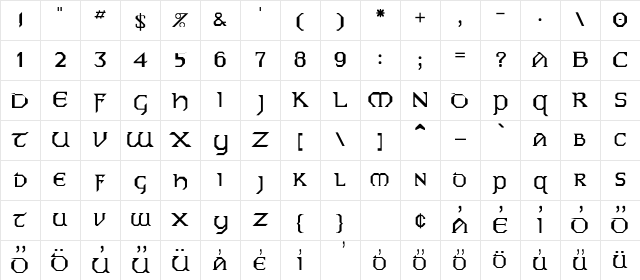
Complete Greek-SenatorHU A glyph index. Displaying only characters natively supported by Greek-SenatorHU A font.
Greek-SenatorHU is a composed and adaptable typeface that performs quietly and consistently across a wide range of design contexts.